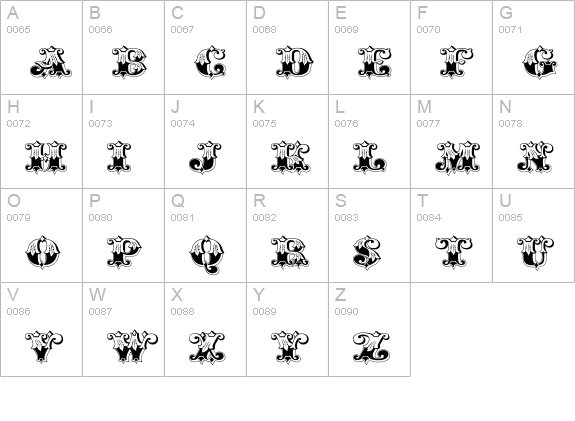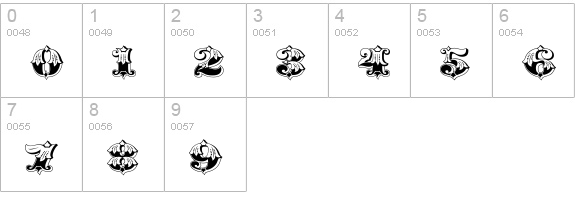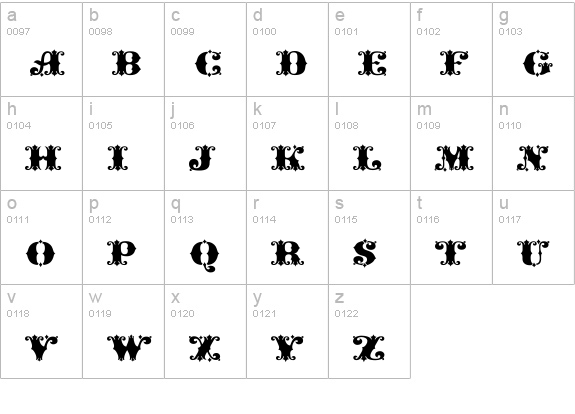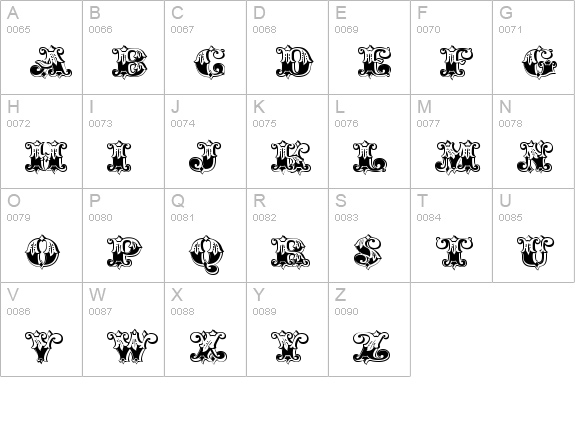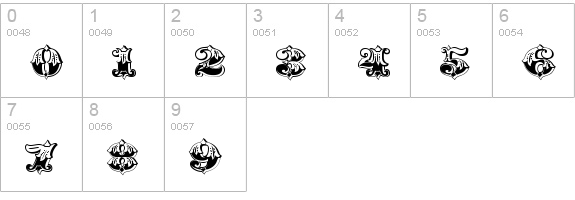
Gold Standard font is a luxurious and elegant typeface that exudes sophistication and class. Its ornate design features intricate details and flourishes that add a touch of opulence to any project. The font's timeless aesthetic makes it perfect for high-end branding, wedding invitations, and other special occasions where a touch of luxury is desired. What sets Gold Standard font apart is not only its exquisite design, but also the fact that it is completely free to download. You can easily access this premium font at FontsMarket.com, where you can enjoy the beauty and elegance of Gold Standard without any cost. Make your designs shine with this stunning font and elevate your projects to the next level.